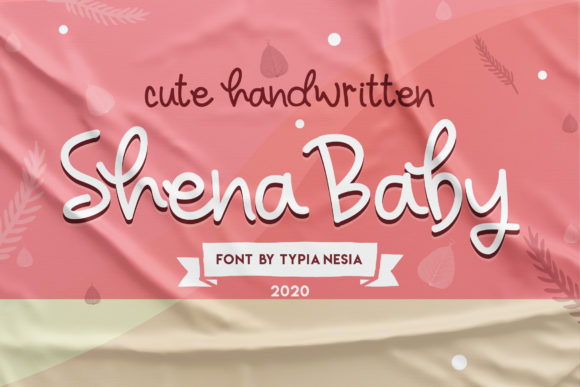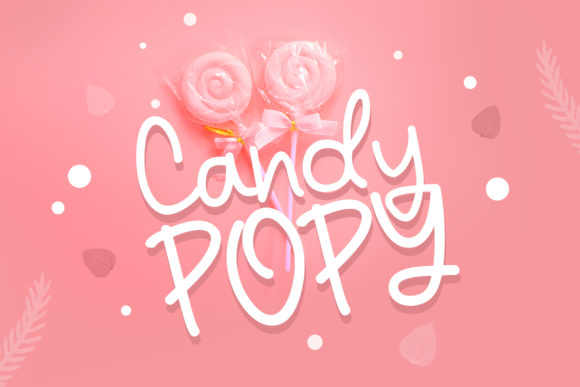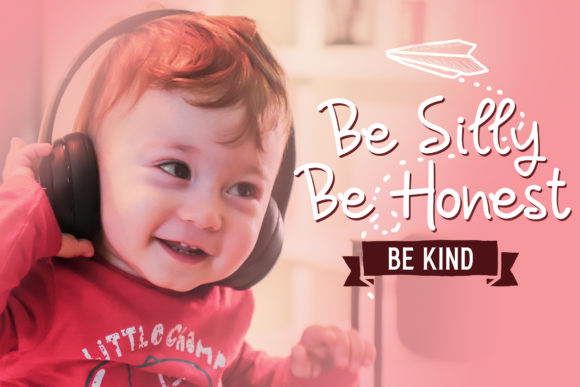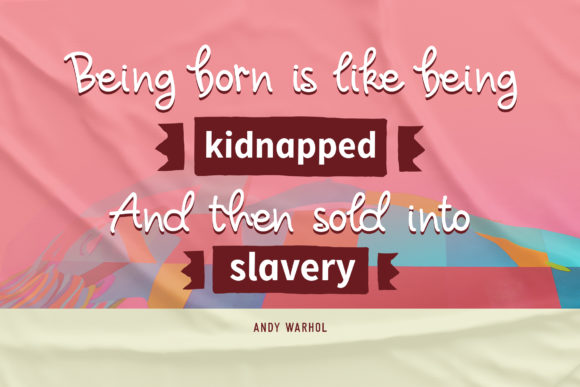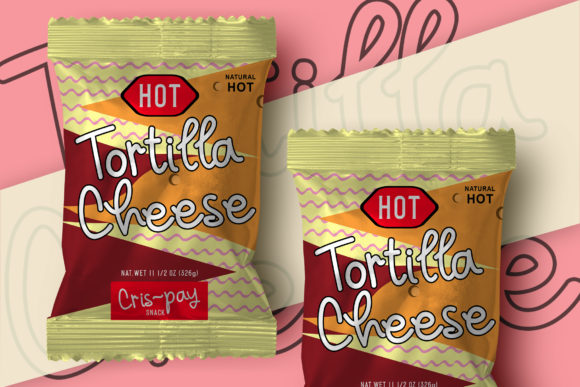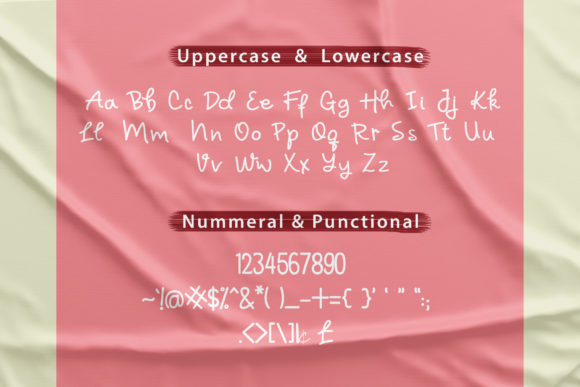
Sheyna Baby Font
About Sheyna Baby Font
Sheyna Baby is cute, playful and incredibly adorable. This authentic script radiates life and will add a unique touch to your next crafting design.